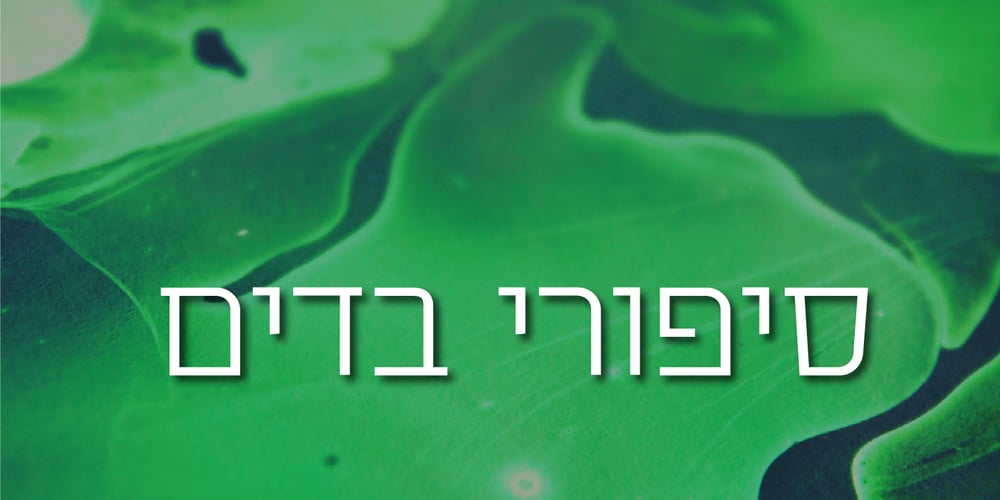
Semantica MF Font Family was designed by Zvika Rosenberg and published by Masterfont. Semantica MF contains 11 styles and family package options. Formal, yet with very high legibility even in small point sizes. Many weights gives you design alternatives